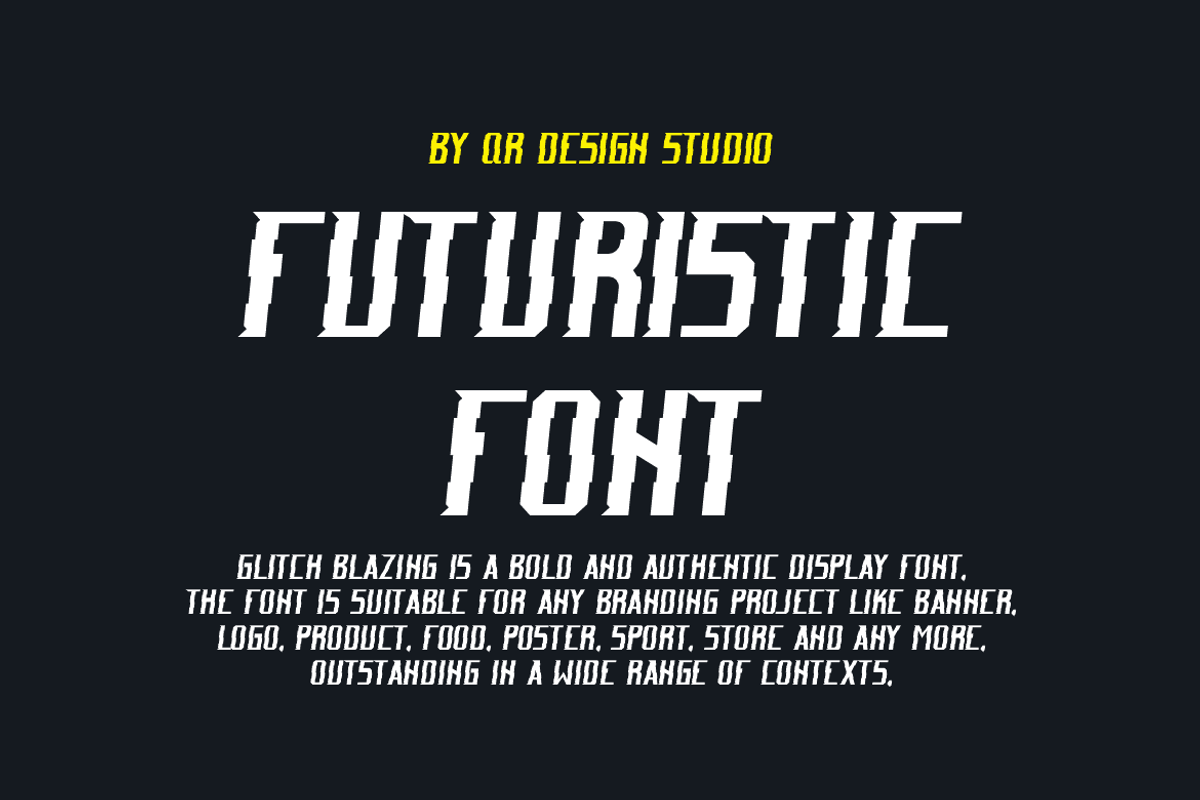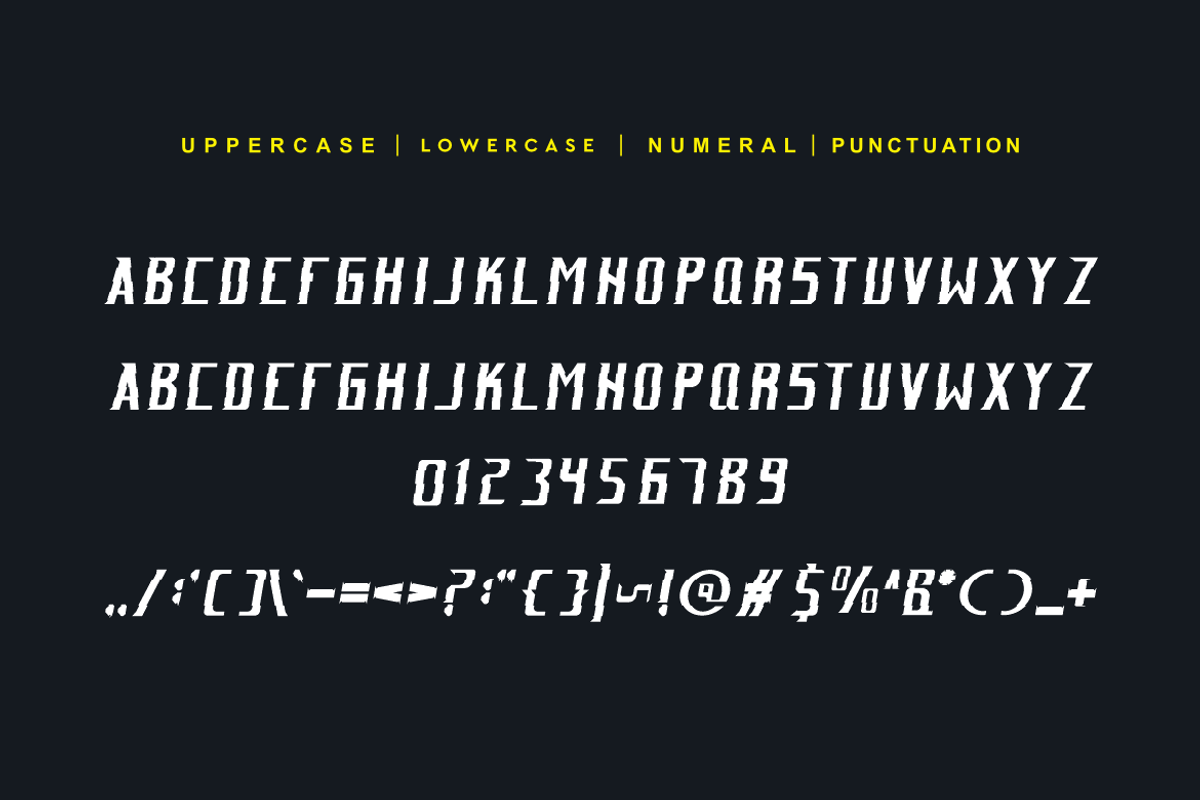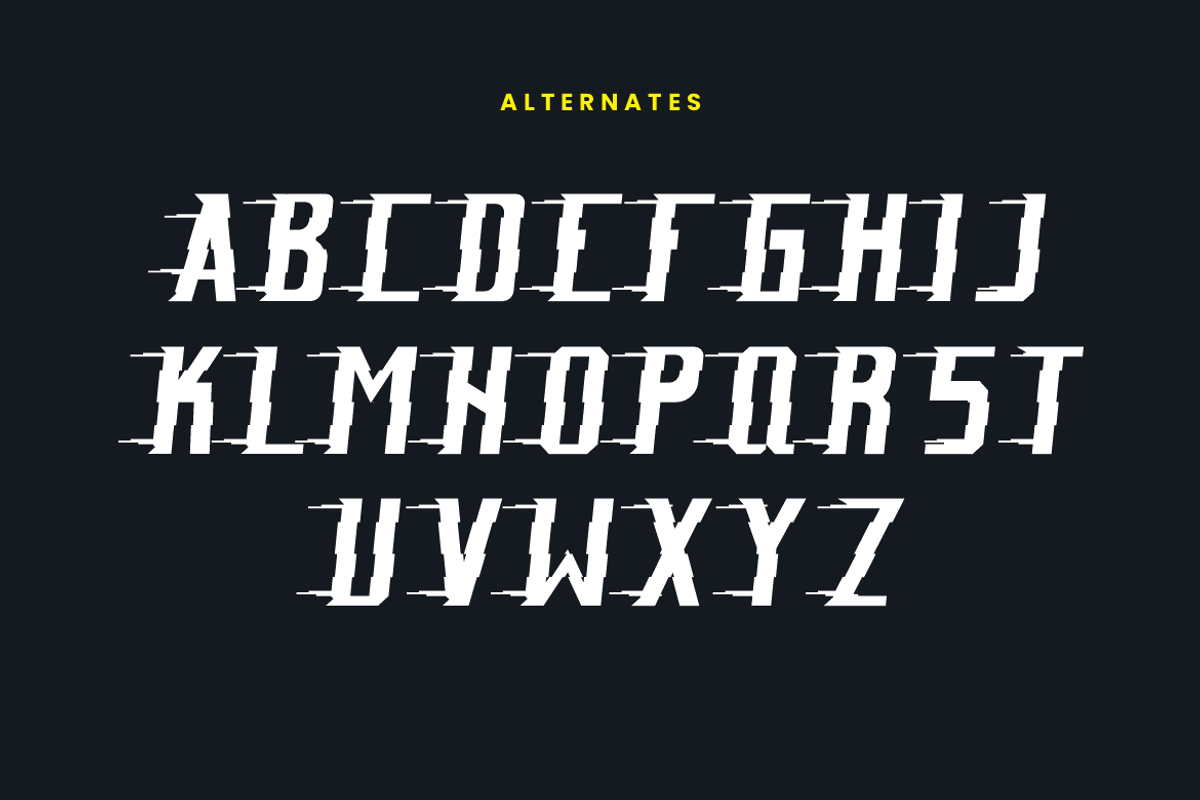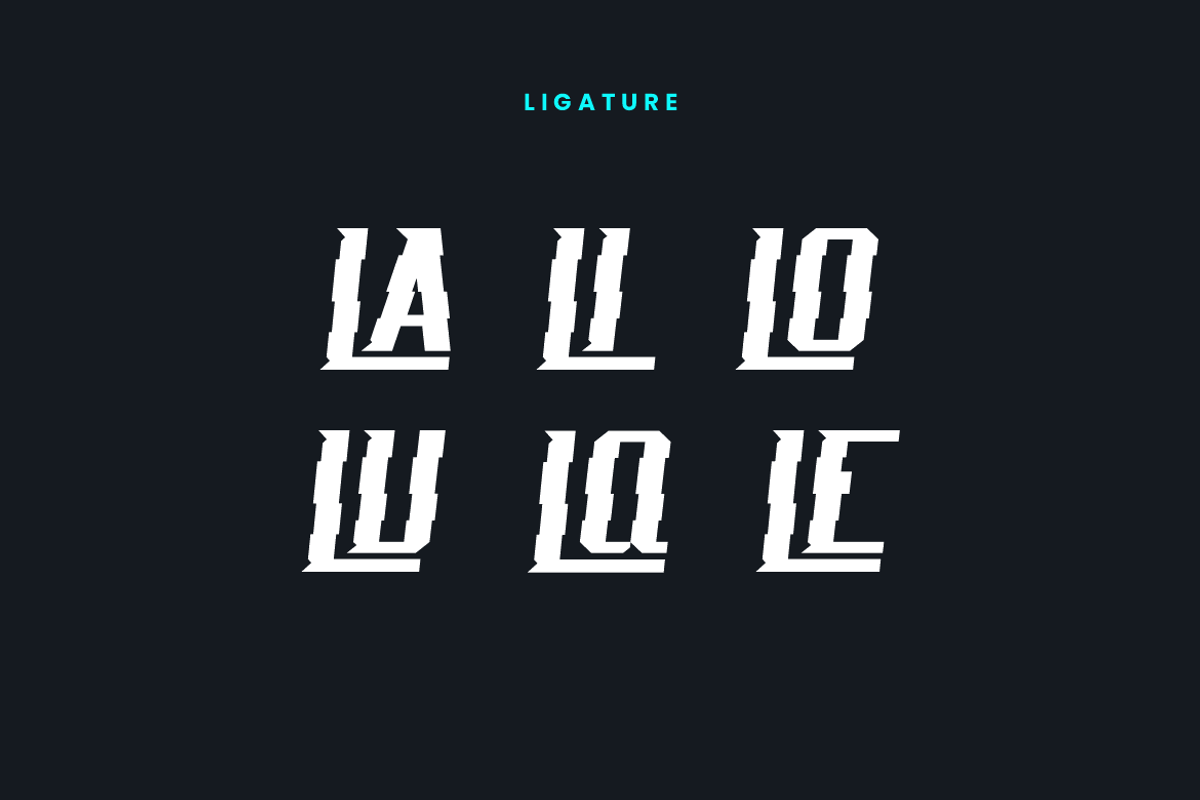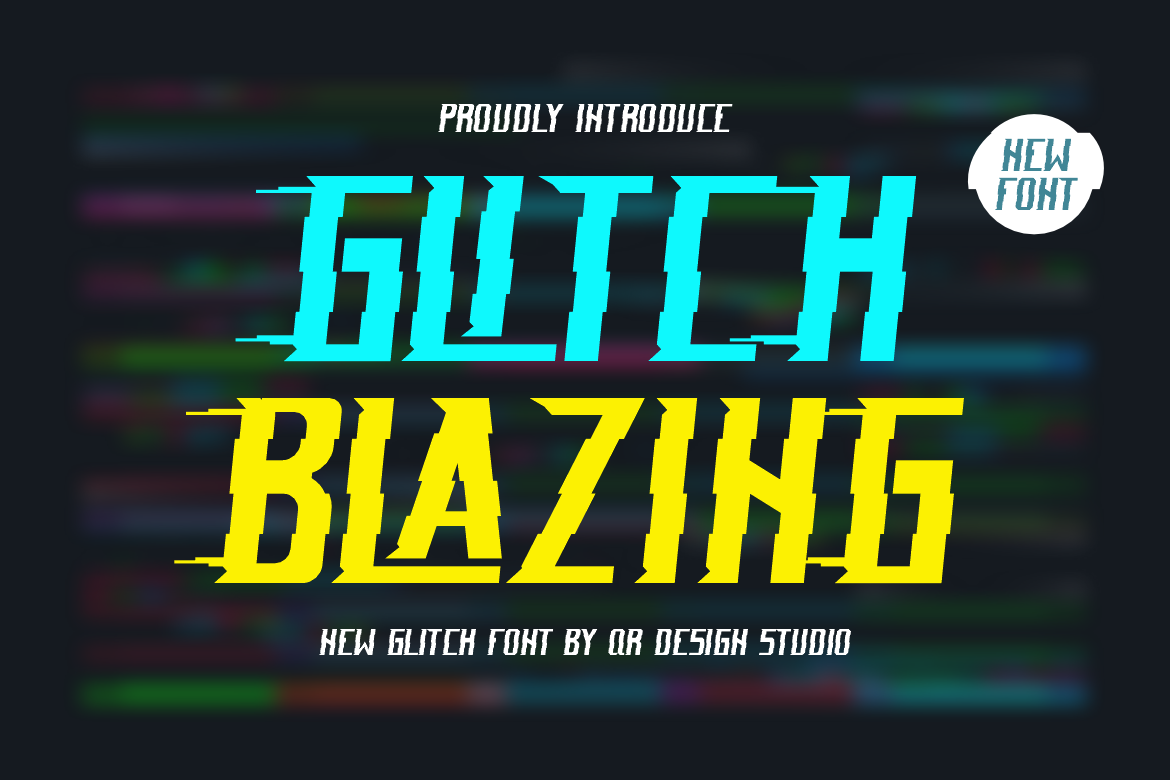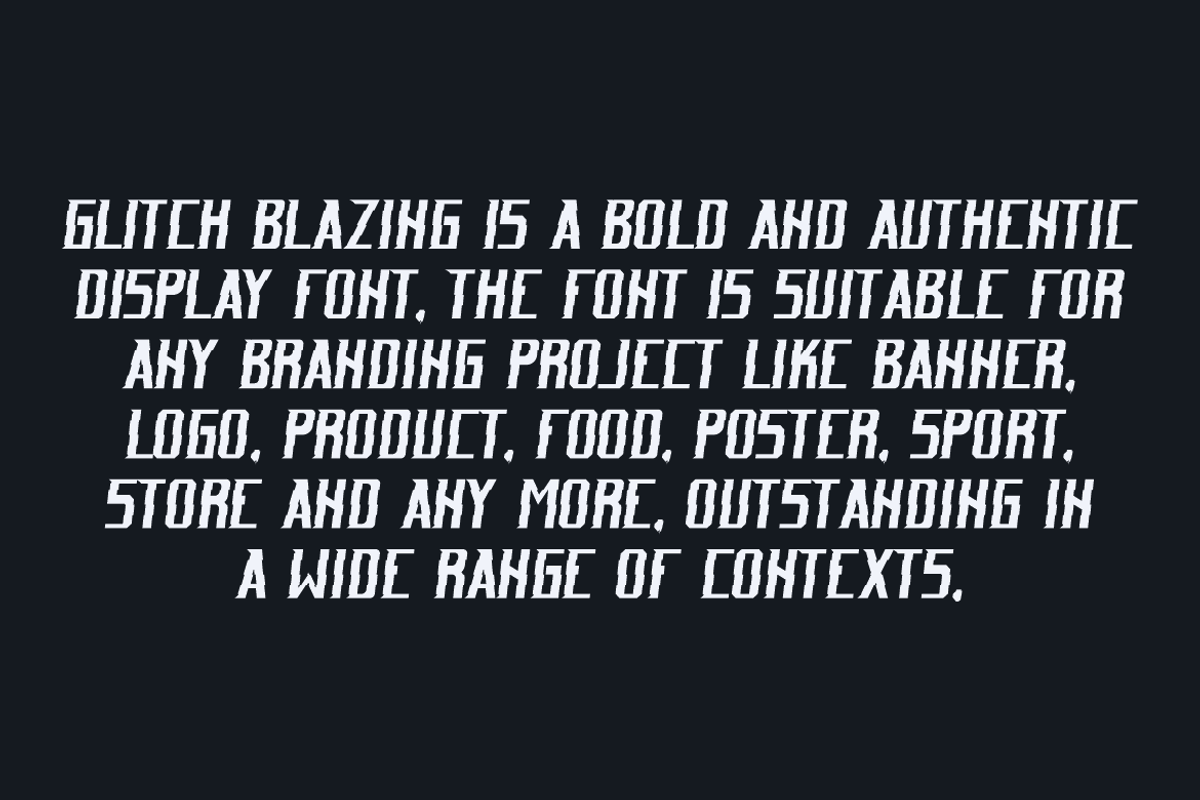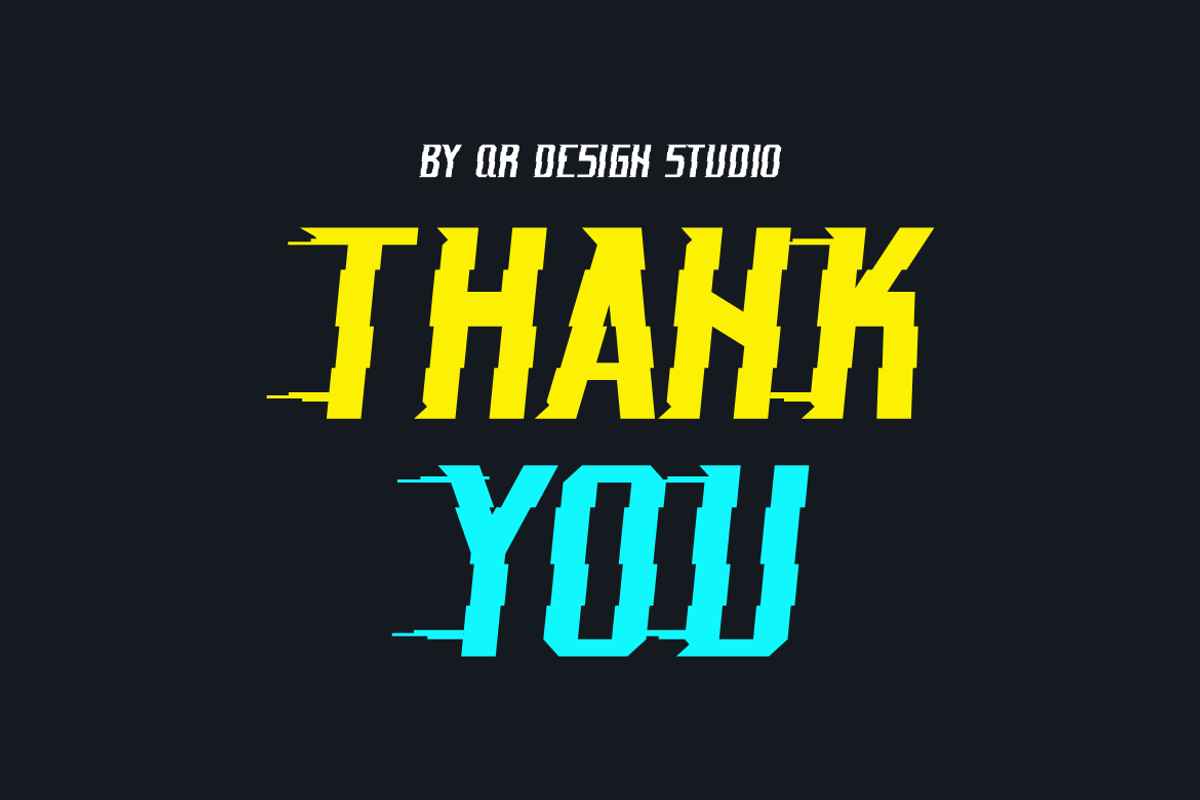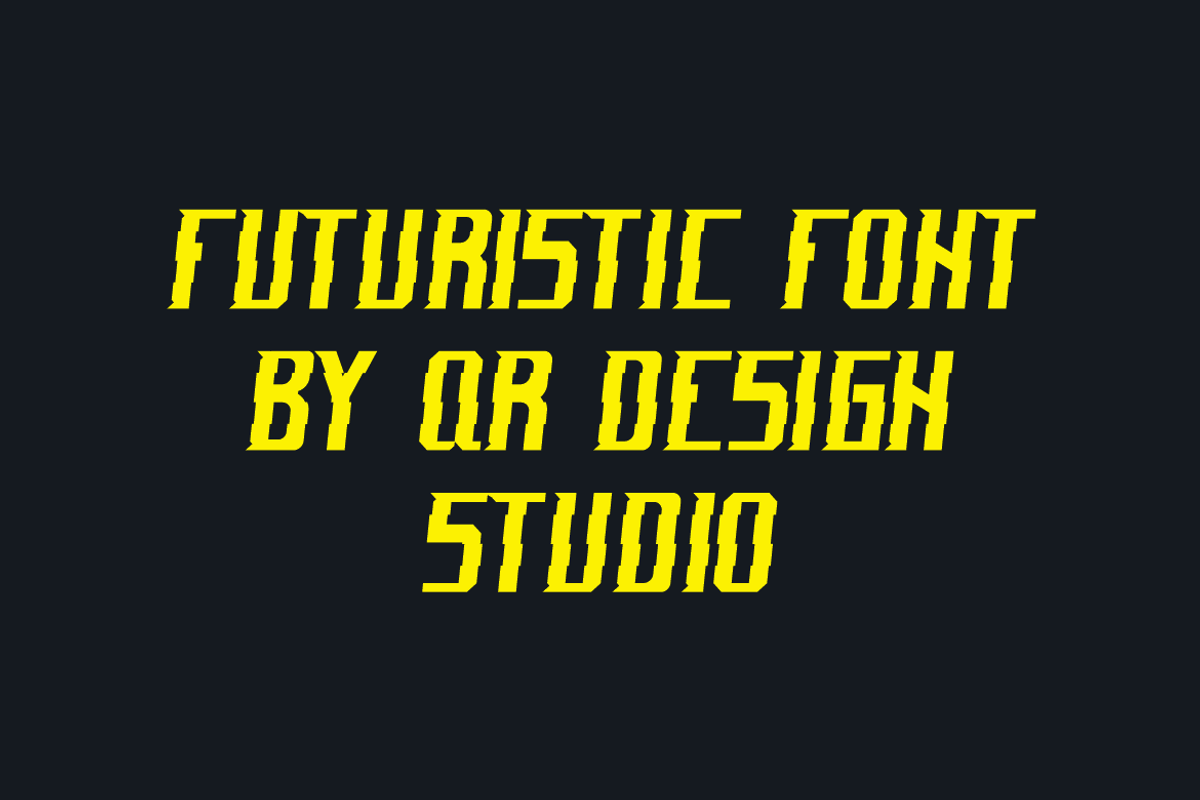
Glitch Blazing Font
Glitch Blazing Font is modern and authentic display font. The font is suitable for any branding project like poster, logo, sport, and many more. Outstanding in a wide range of contexts.